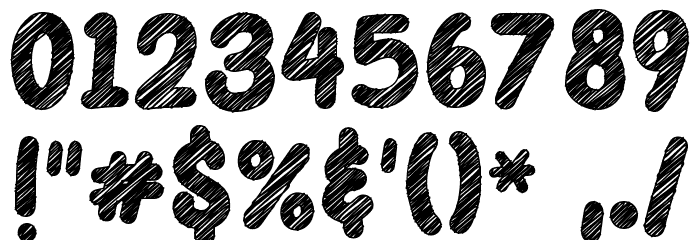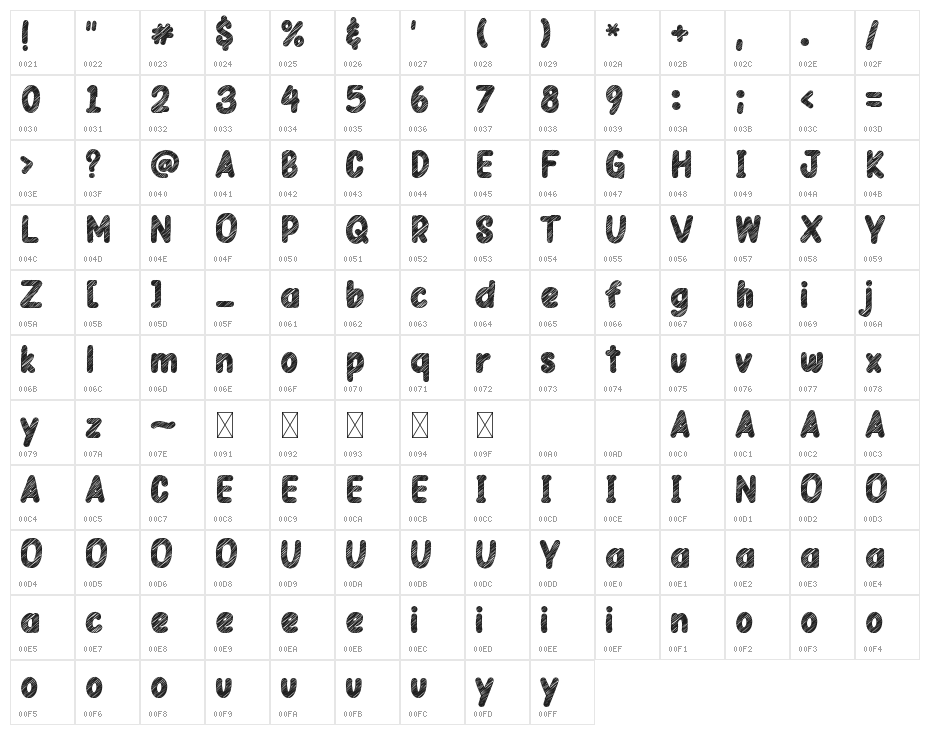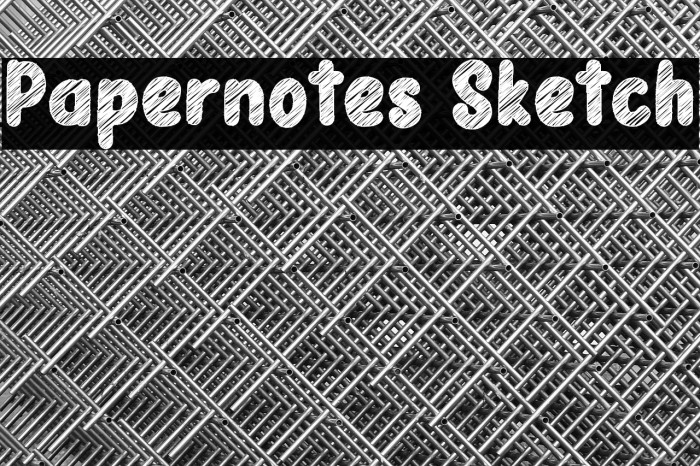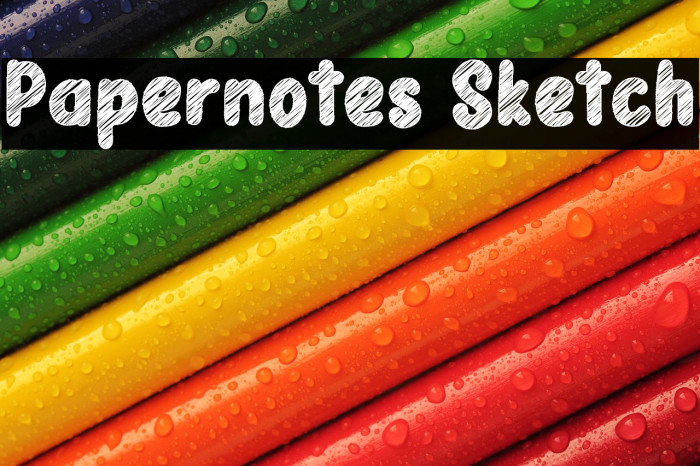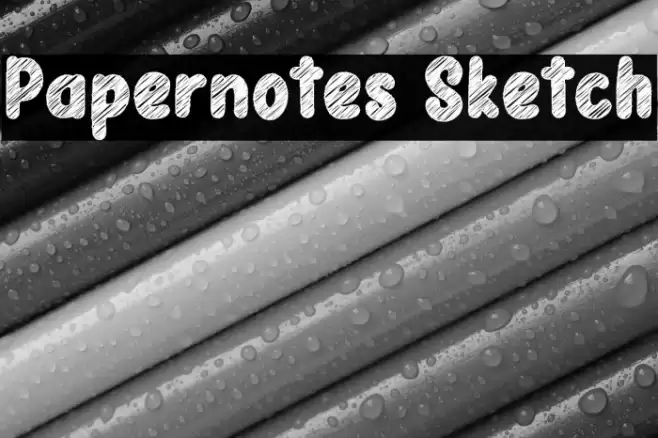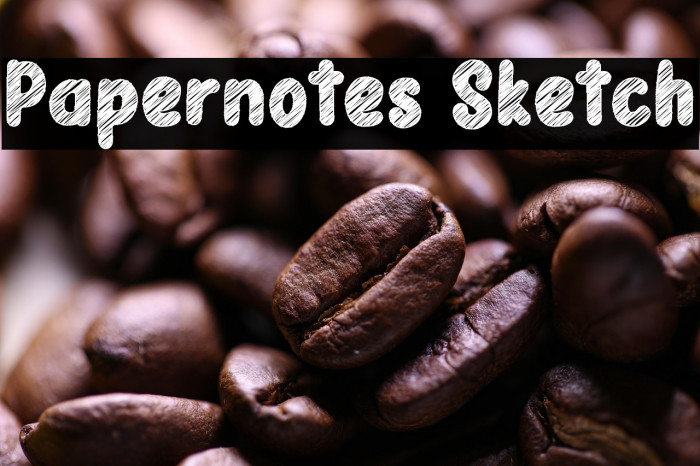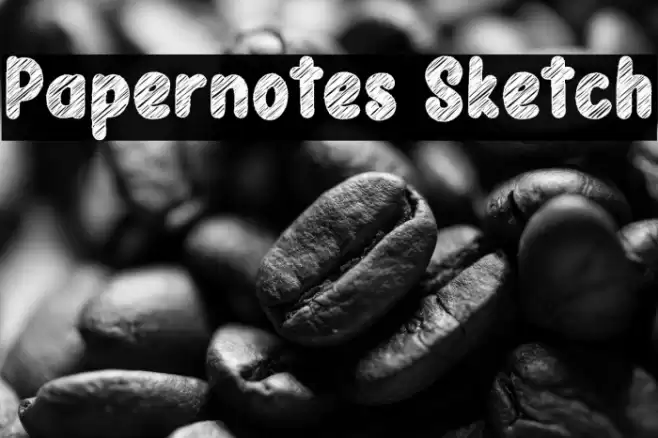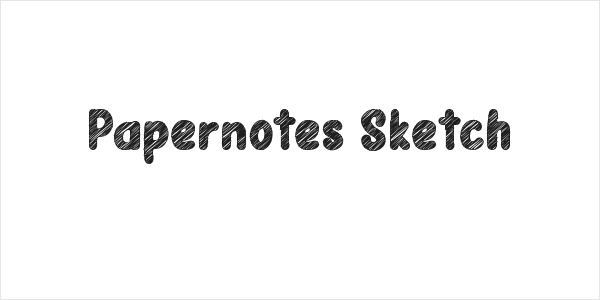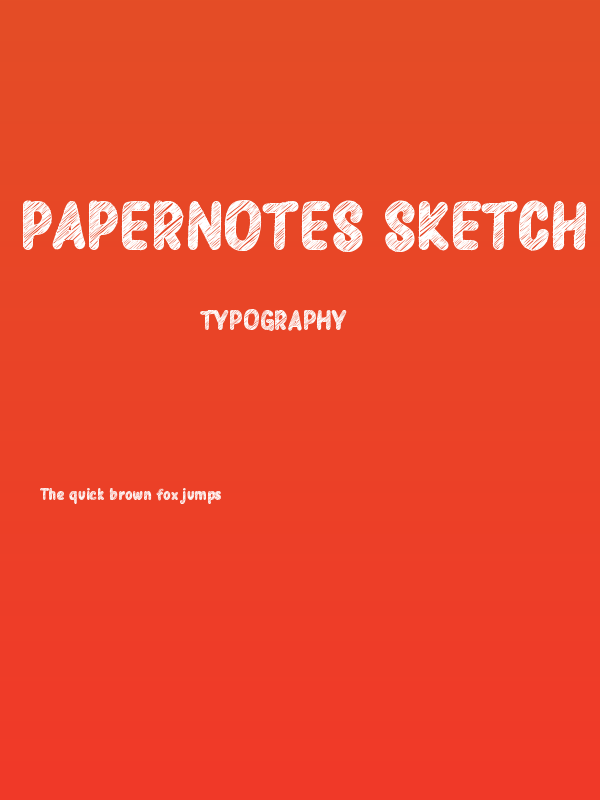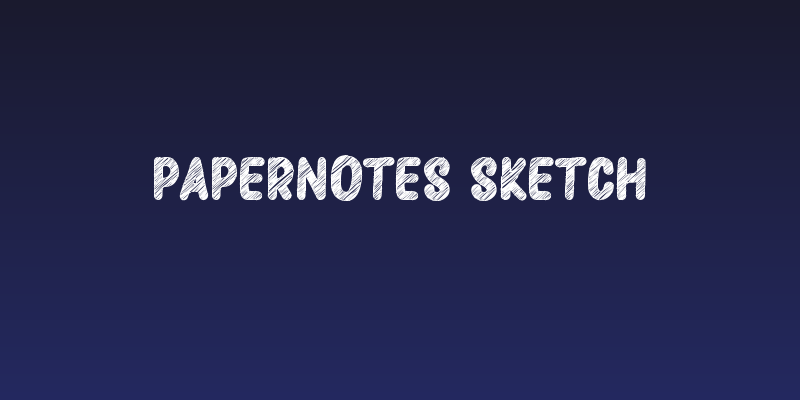
Papernotes Sketch Font
Papernotes Sketch Description
This font features a playful and sketch-like design, characterized by its hand-drawn appearance with diagonal hatching inside each character. The letters are bold and rounded, giving them a friendly and approachable look. The uppercase and lowercase letters maintain consistent styling, with a slightly whimsical touch that adds to the overall charm. The numbers and special characters follow the same design principles, ensuring uniformity across all glyphs. This font's unique style makes it stand out, making it ideal for creative projects that require a personal and artistic touch.
Overall StylePlayful, Artistic
Proposed ProjectsIdeal for children's books, creative posters, greeting cards, and playful branding.